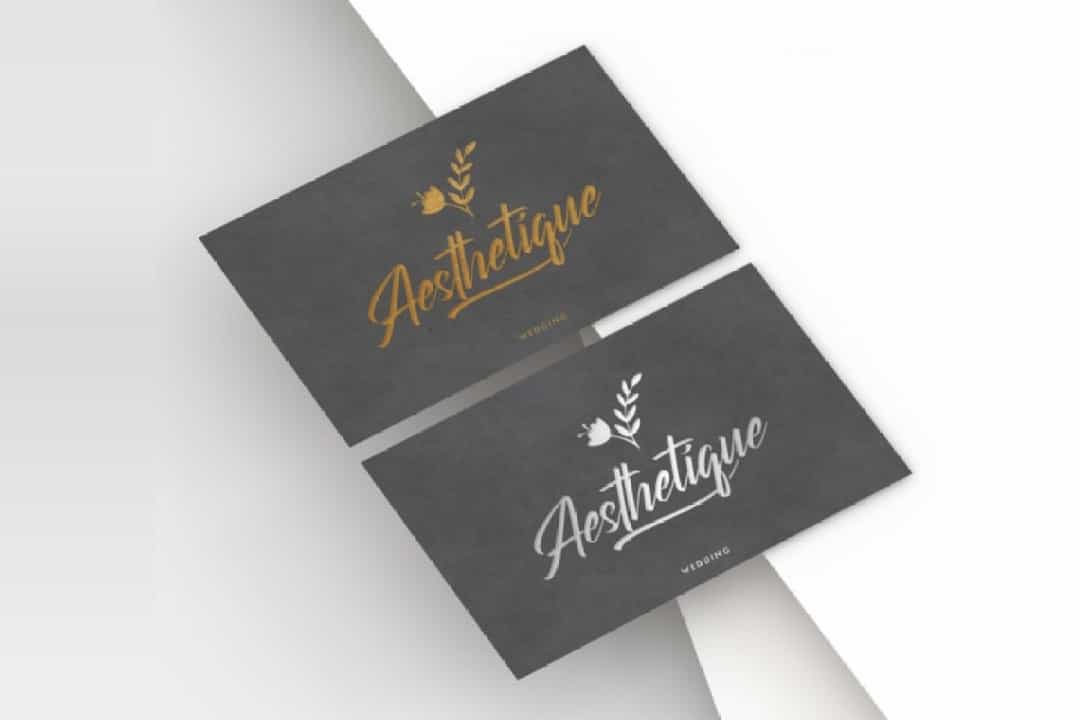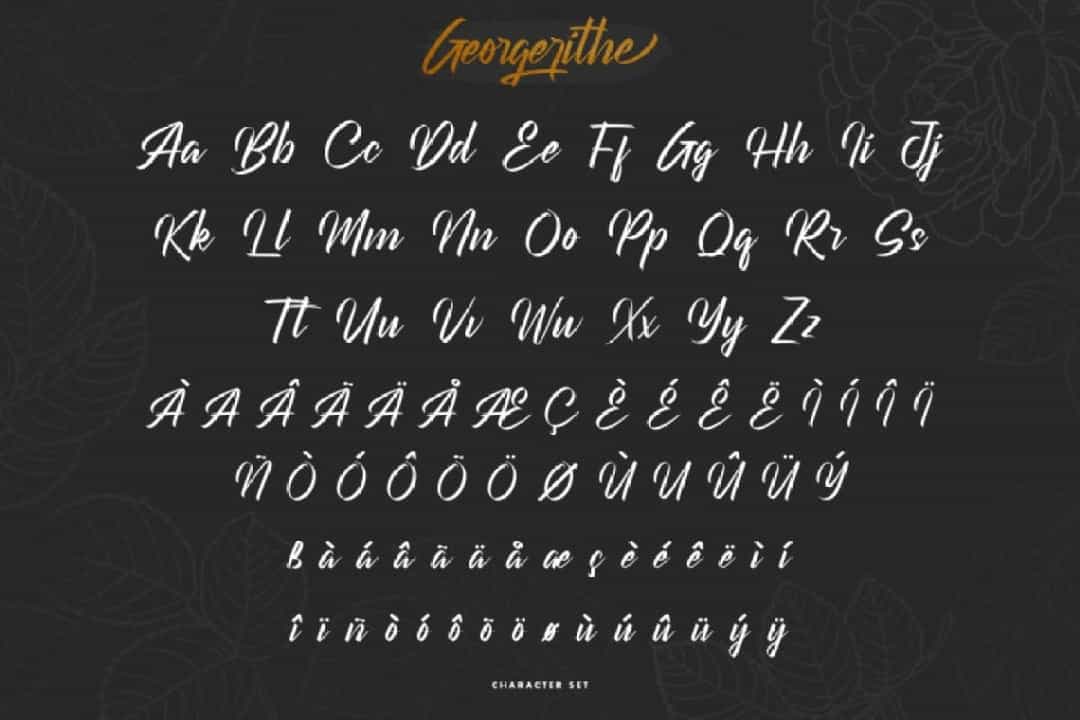
Discover Georgerithe Font, part of the Brush Calligraphy Handwritten Script Personal collection—a versatile and unique font perfect for adding a personal touch to your projects. Download it for free and enjoy crafting designs with style, from invitations to social media posts. This font is available exclusively for personal use, giving you the freedom to create without limits. Unlock your creativity with Georgerithe Font today!
The font that is being proposed here is Georgerithe and it is a calligraphic font. It has fancy and stylish outline with the features of the modern luxury models and the exterior has a brush type finish. Georgerithe is suitable for titles such as invitations, apparel labels and book titles and also for stationery, branding, greeting cards, quotes for cards, logos, posters, tees, t-shirt posters, etc.